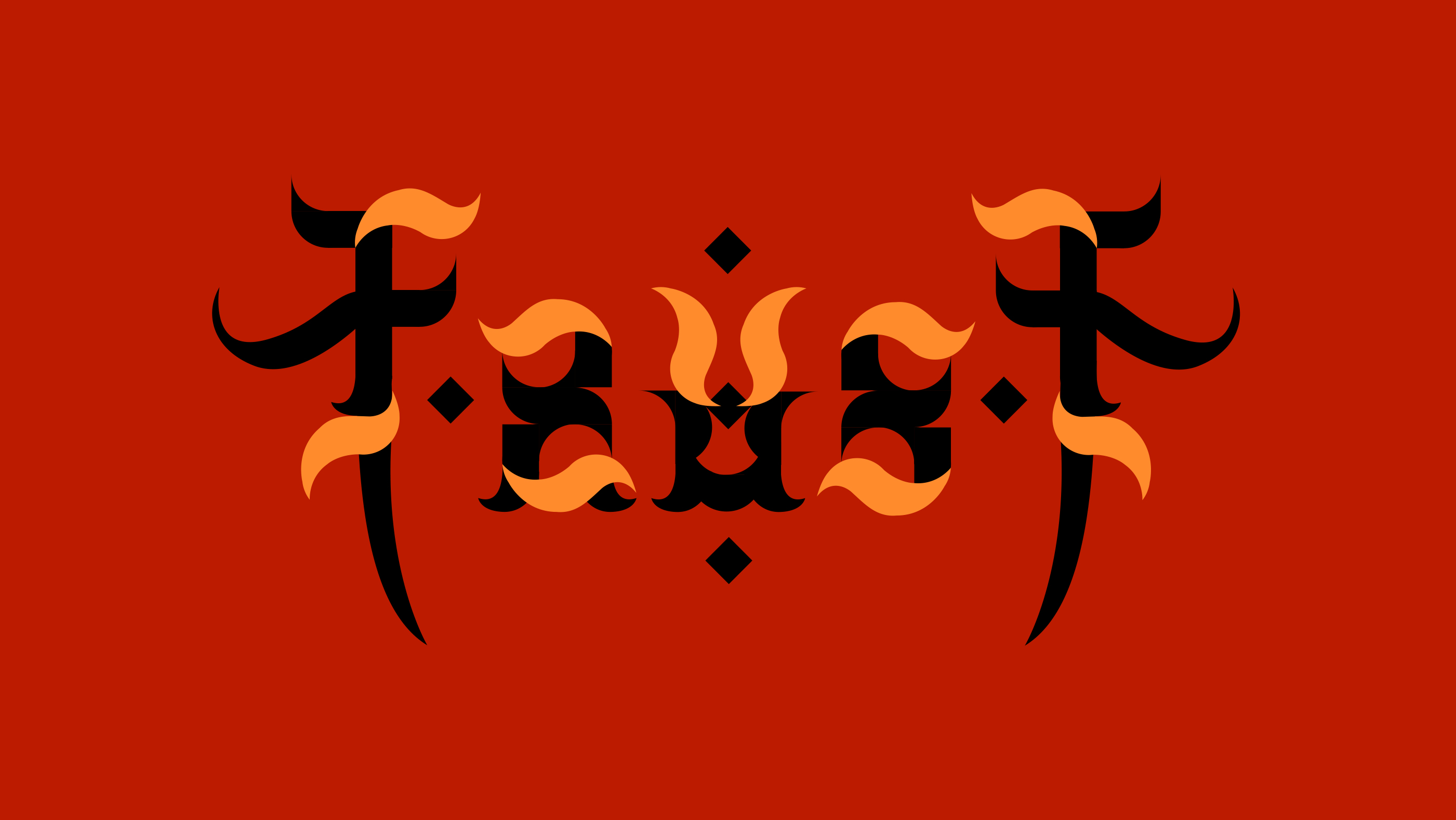
Faust
Inspired by classic literature, this is my interpretation of Faust. I wanted to combine the feeling of fire with handwritten forms, creating a central goblet of fire where the flames emerge and shape the composition.